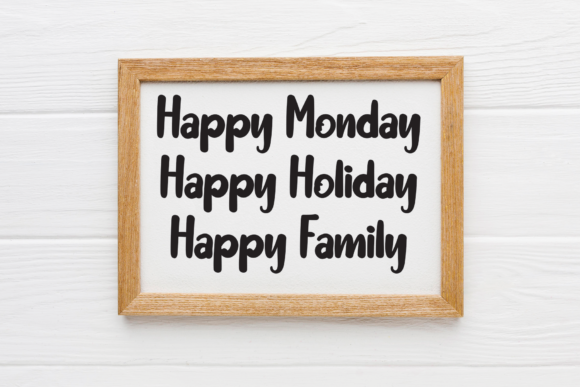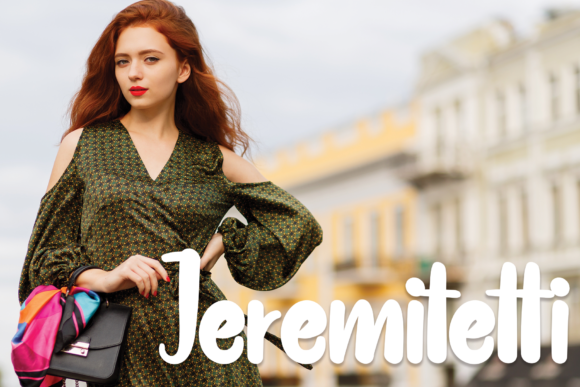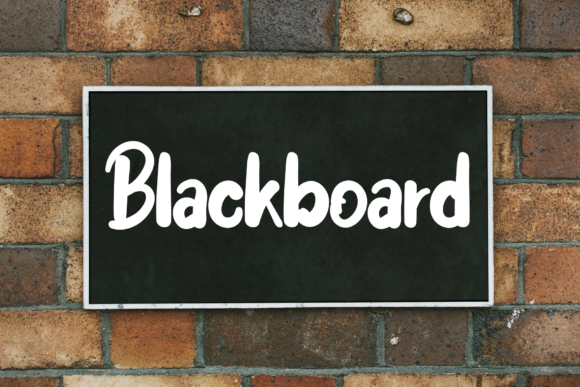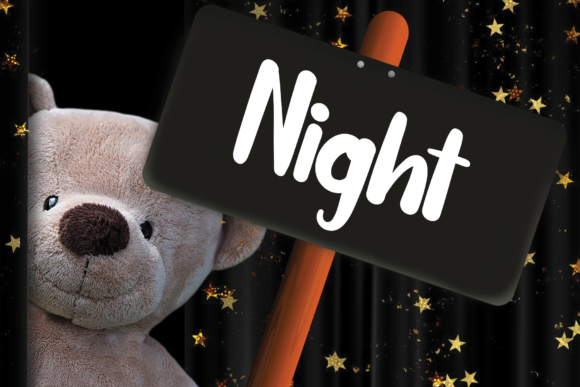
Introduction to Shells and Beach Font
Remember the last time you strolled along a serene beach, feeling the warm sand between your toes and the cool ocean breeze in your hair? The sound of the waves gently lapping at the shore, the smell of saltwater and the sight of seashells scattered all over the beach? It’s moments like these that spark our creativity and inspire us to bring a touch of the natural world into our designs.
For designers looking for a high-quality, unique font that can elevate their creative projects, the Shells and Beach Font is a valuable resource. With its elegant, handwritten style and transparent background, this font is perfect for adding a personal touch to wedding invitations, business cards, greeting cards, and social media posts. And the best part? It’s available for free download, making it an accessible design resource for creatives of all levels.
Key Features of Shells and Beach Font
- High-quality design resource with a unique, creative feel, perfect for projects related to summer, beach, or coastal themes.
- Includes a range of characters, including uppercase and lowercase letters, numbers, and punctuation marks, making it a versatile design resource.
- Ideal for use in various design projects, such as posters, flyers, business cards, and digital graphics, thanks to its clean and elegant design.
Honest Review: Shells and Beach Font
As a designer, I’m always on the lookout for high-quality fonts to elevate my creative projects. I recently had the chance to try out the Shells and Beach Font, and I must say, it’s a lovely addition to my design resource library.
What works well with this font is its ability to evoke a sense of serenity and tranquility. The subtle beach-inspired design elements add a touch of whimsy to any project, making it perfect for branding or web design. I particularly appreciate the transparent background, which allows for seamless layering and customization.
Here are some of the key features I like about the Shells and Beach Font:
One limitation I’ve noticed is that the font can be a bit difficult to read at smaller sizes. It’s not a deal-breaker, but it’s something to keep in mind when using the font in smaller contexts.
Overall, I’m impressed with the Shells and Beach Font, and I’d definitely recommend it to designers looking for a high-quality, free download. It’s a great addition to any design resource library, and I’m excited to see how it will elevate my future projects!
Use the Shells and Beach Font in conjunction with other beach-themed design elements, such as images of seashells and beach scenes, to create a cohesive design. Experiment with different font sizes and styles to add visual interest to your design.
The Shells and Beach Font is commonly used for beach-themed designs, such as invitations, posters, and presentations. It’s also great for creating a high-quality design for a creative project, such as a beach-themed calendar or brochure.